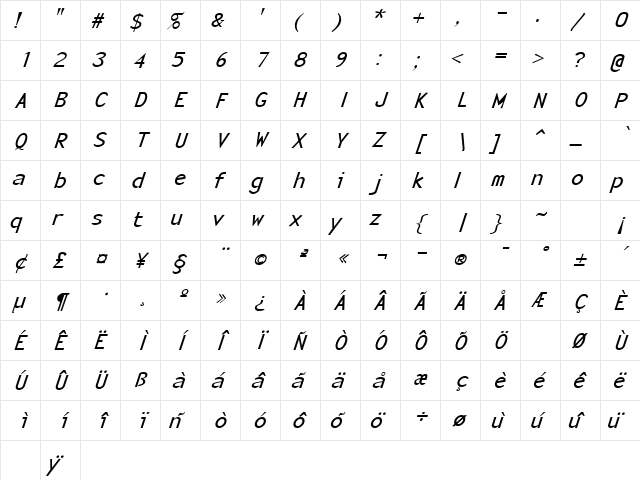
Rover 2 Italic
Design Context for Rover 2 Typeface
Rover 2 offers clean, dependable letterforms without strong stylistic allegiance, making it a practical choice for designers who need flexibility. The dynamic lean of this cut emphasises speed and emphasis in any layout.
Pro Tip: Try Rover 2 for annotation and caption copy alongside an upright companion — the contrast in angle creates a dynamic but ordered typographic system.